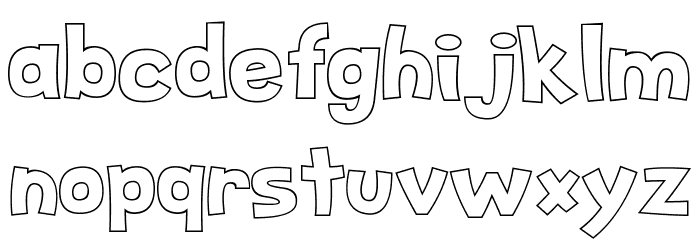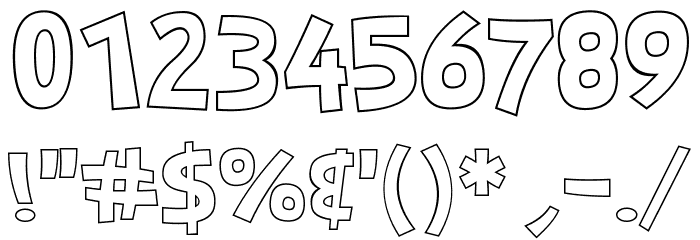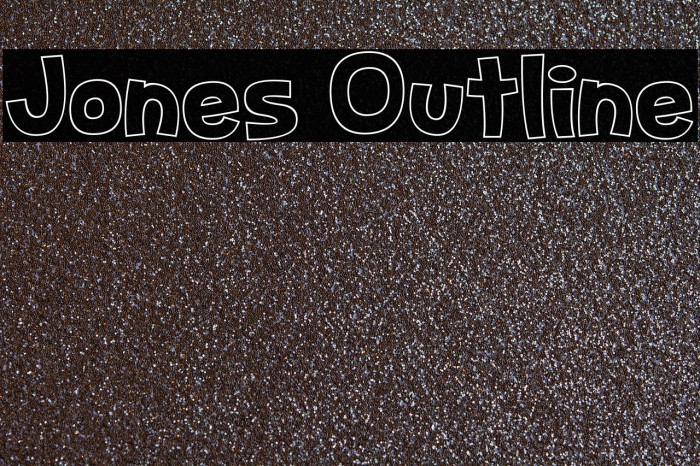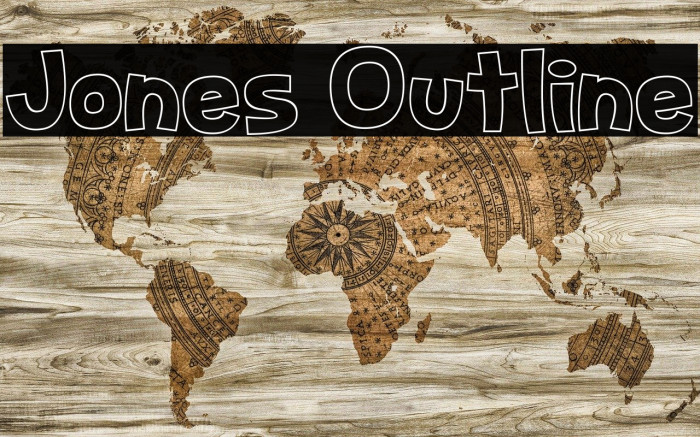
Jones Outline Font
This font features a playful, outlined style that gives it a bold and eye-catching appearance. Each character is defined by a thick, uniform outline, creating a sense of depth and dimension. The letters are slightly rounded, adding a friendly and approachable feel. The uppercase and lowercase letters maintain consistent proportions, ensuring readability. Numbers and special characters are designed with the same outlined aesthetic, making them stand out. This font is ideal for projects that require a fun and informal touch, such as children's books, posters, or party invitations.
A playful, outlined font with a bold and friendly appearance.
- Proposed Projects: Ideal for children's books, posters, party invitations, and playful branding.
- Overall Style: Playful, Fun